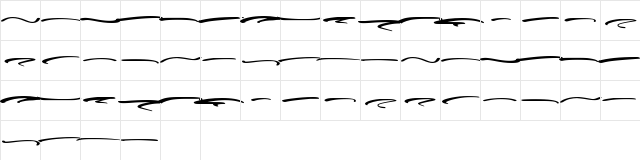
Parfait Swash Line Regular
Design Context for Parfait Swash Line Typeface
Parfait Swash Line brings a calligraphic fluidity to the page — its connecting strokes and expressive curves give it an unmistakably human quality.
Font Pairing: Combine Parfait Swash Line with a simple geometric sans for maximum contrast — the tension between flowing curves and clean structure is a classic typographic pairing.
Pro Tip: Use Parfait Swash Line for short runs of text — names, titles, or taglines. Extended body copy in script faces tires the eye quickly.